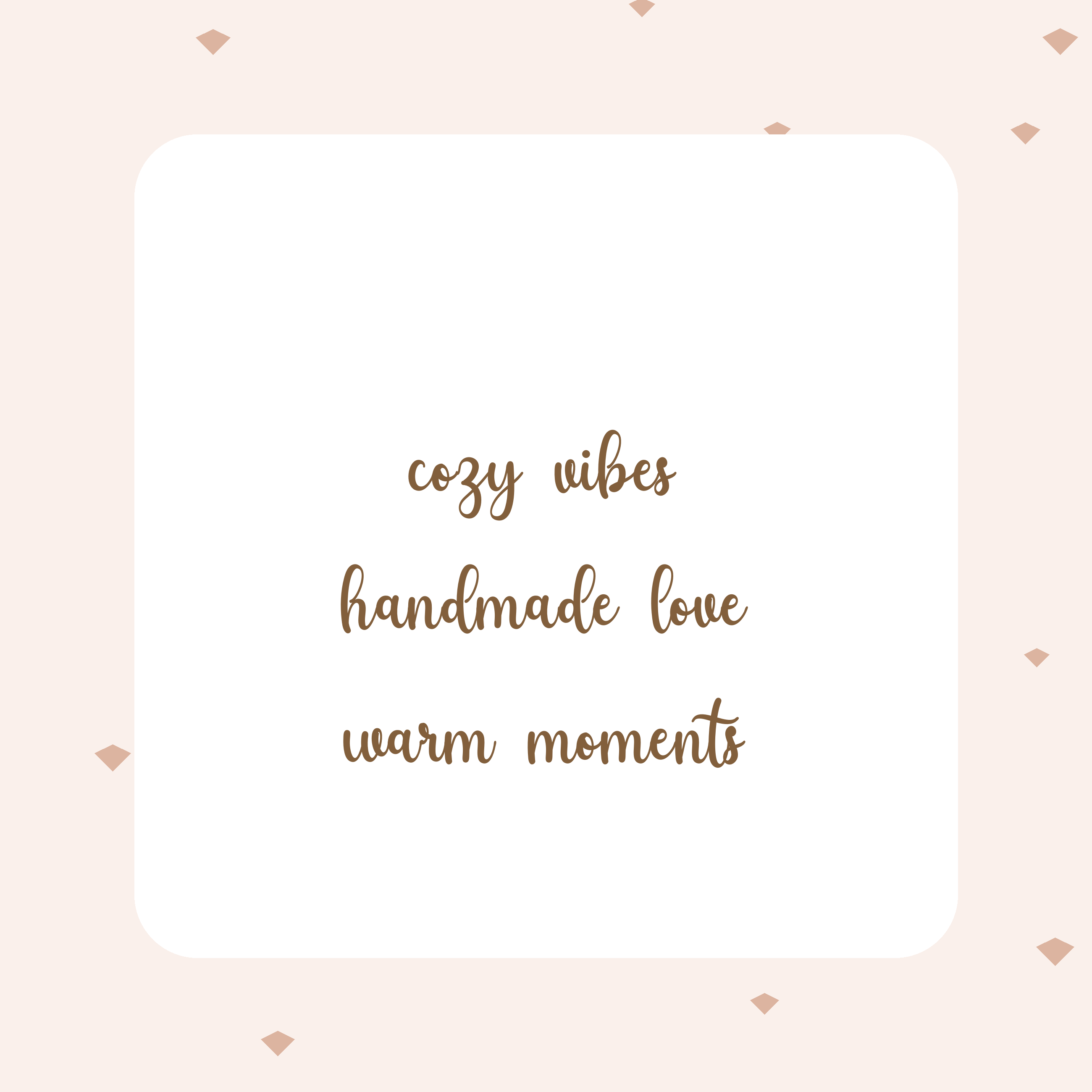
Homsyatun Cozy Handwritten Font | Cute Cricut Font | Warm Script Branding Font
🤎 Homsyatun is a cozy, handwritten script font with a warm and friendly feel. Designed to look natural and handmade, this font is perfect for Cricut projects, stickers, journals, and heartfelt designs.
✨ Cozy, natural lettering
✨ Extra-large and easy to read
✨ Perfect for warm & handmade projects
✂️ Perfect For
• Cricut & Silhouette cutting
• Stickers & journaling
• Handmade & cozy branding
• Packaging, labels & cards
• Shirts, tote bags & mugs
• Social media graphics
• Digital & printable products